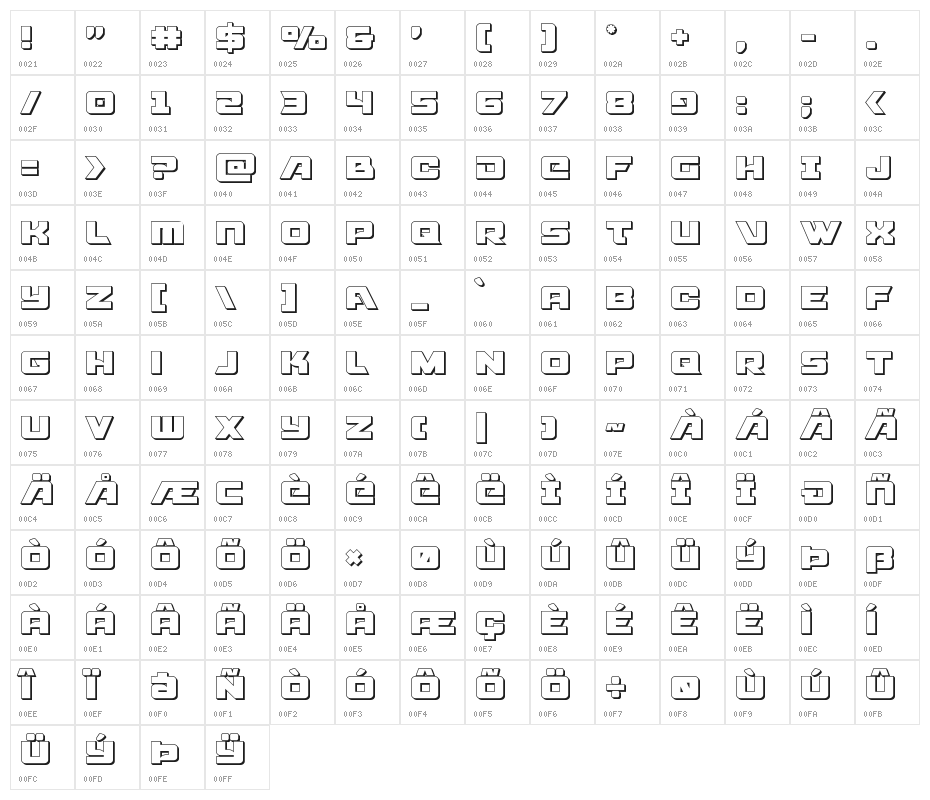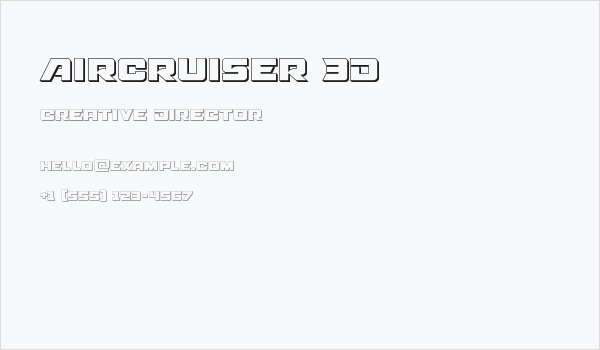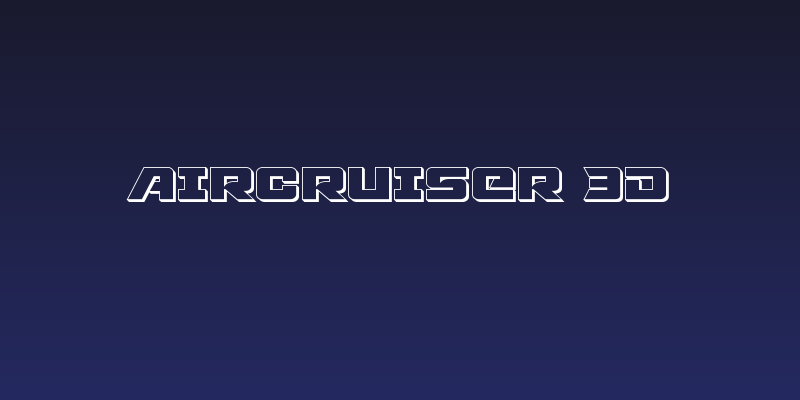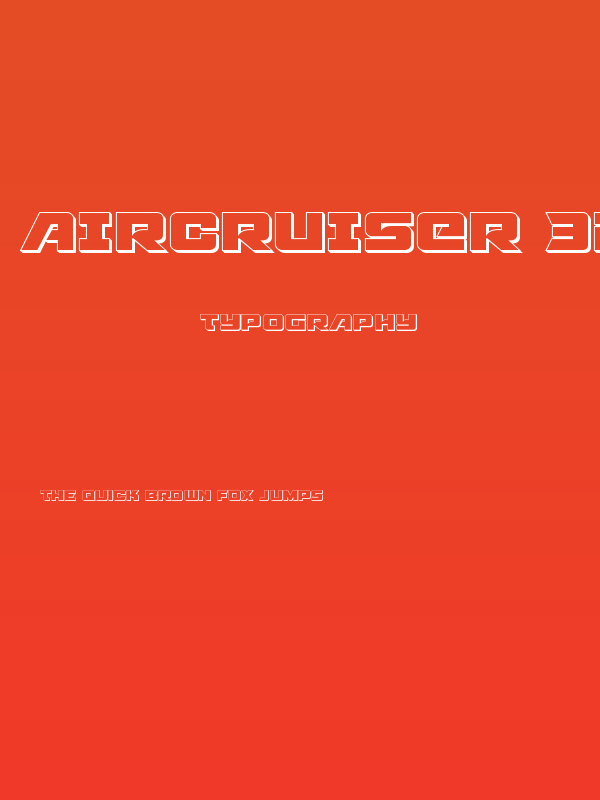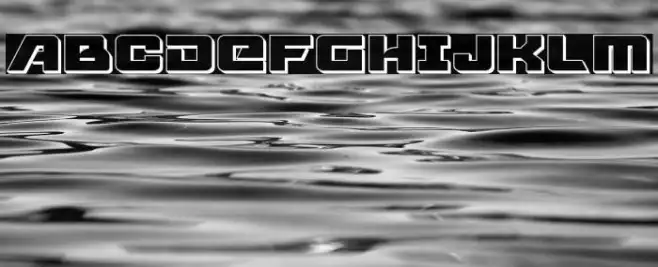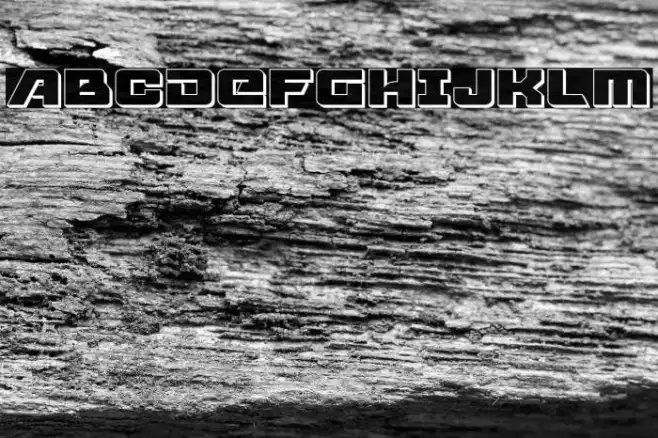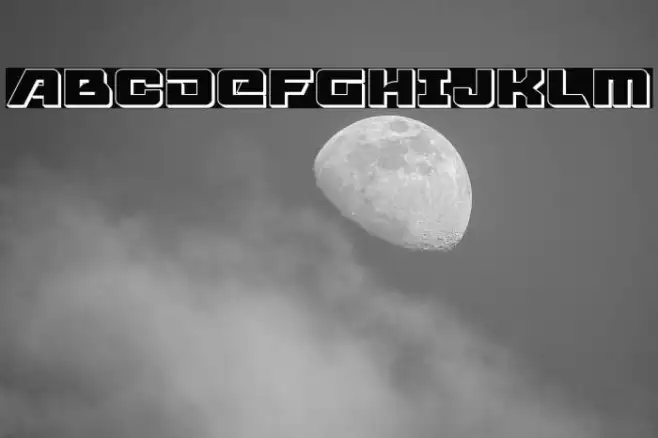
Aircruiser 3D Font
Aircruiser 3D Description
This font features a bold, three-dimensional design with a futuristic and geometric aesthetic. The characters are outlined with a thick border, giving them a strong presence and a sense of depth. The angular shapes and sharp edges contribute to a modern and industrial feel, making it ideal for projects that require a standout, tech-inspired look. The uppercase letters are consistent in height, while the numbers and special characters maintain the same bold style, ensuring uniformity across all text. This font is particularly suitable for creative and dynamic designs, where a bold statement is desired.
AIRCRUISER-3D1 UPPERCASE
AIRCRUISER-3D1 LOWERCASE
AIRCRUISER-3D1 OTHER CHARS
| Overall Style | Futuristic, Industrial |
| Proposed Projects | Ideal for tech-themed posters, video game titles, futuristic branding, and sci-fi book covers. |